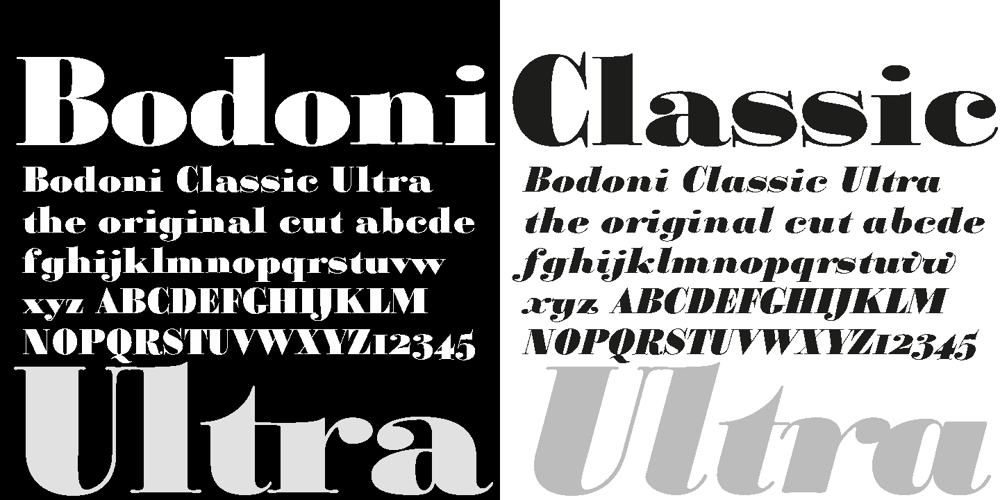
Bodoni Classic Ultra Font Family was designed by Gert Wiescher and published by Wiescher Design. Bodoni Classic Ultra contains 3 styles and family package options. Bodoni Classic Ultra is my really fat, high contrast extension to my ever expanding Bodoni Classic family. The Script cut is very decorative, the italic cut can be mixed with it to give it a calmer touch.